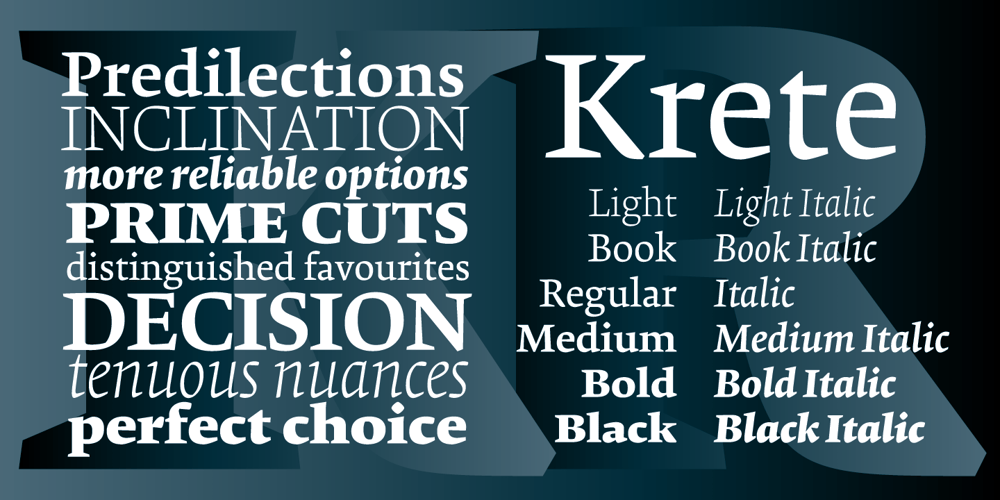
Krete Font Family was designed by Roy Preston and published by BluHead Studio. Krete contains 12 styles and family package options. Krete a hardy serif typeface meticulously drawn by Roy Preston. Anchored by squared off wedge serifs and robust rounds, Krete demands attention. The figure set is old style, and there are several discretionary ligatures and an alternate base-aligning uppercase J. It is a handsome typeface in 12 weights, including drawn italics, ranging from Light to Black, and is perfect for text settings of all kinds. Each font has an extended character set that covers many of the western and central European languages, and the fonts feature these OpenType features: ligatures, discretionary ligatures, and stylistic alternates.